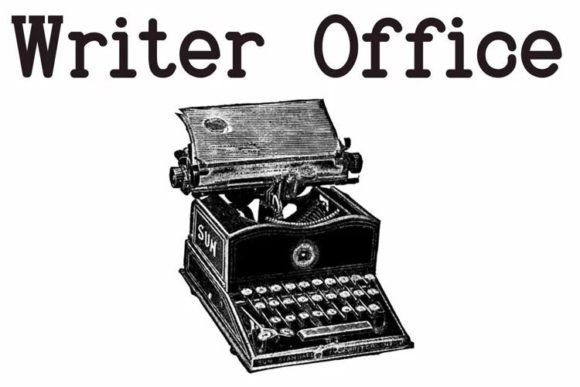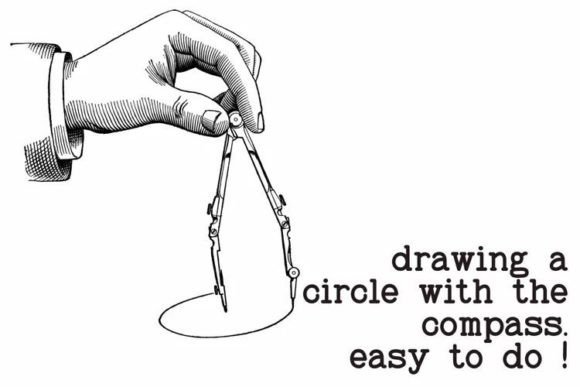
Baltimore Typewriter PACK is a vintage-inspired font collection that brings the nostalgic charm of typewritten text to your projects. With its authentic typewriter-style characters, this pack adds a touch of retro flair to any design. Perfect for creating a classic and timeless look in posters, invitations, and more, Baltimore Typewriter PACK is your go-to choice for capturing the essence of old-school typewriters in modern designs.
Baltimore Typewriter Pack Font